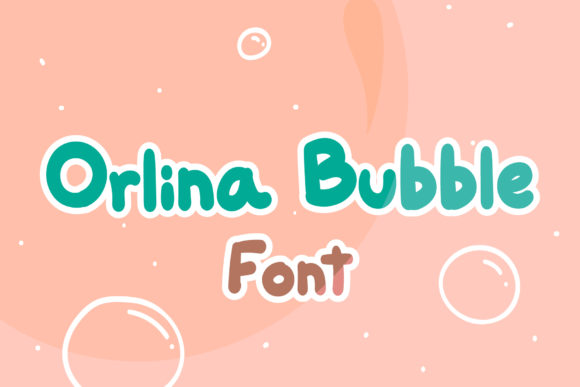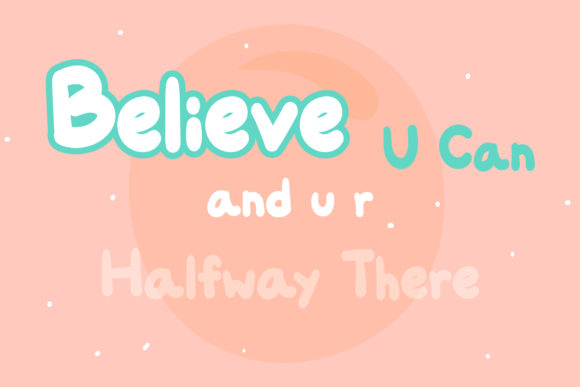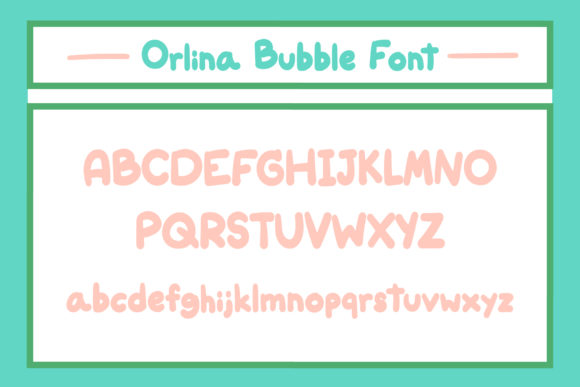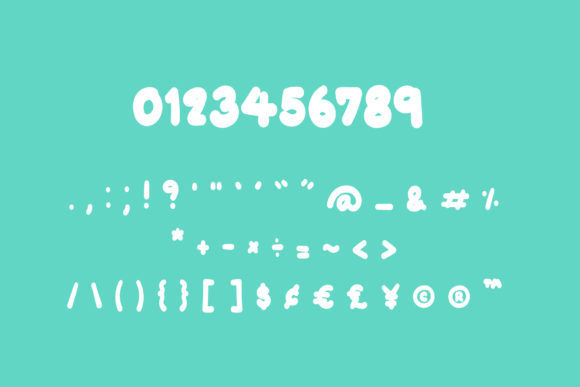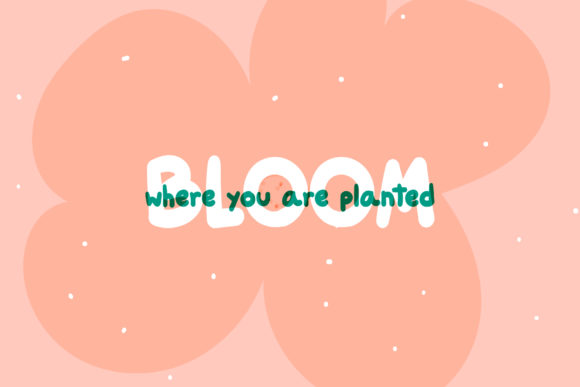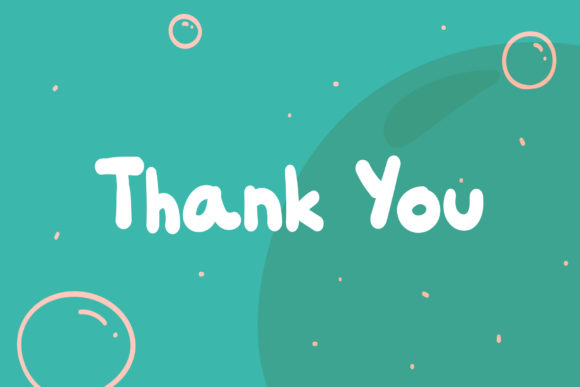
Orlina Bubble Font
About Orlina Bubble Font
Orlina Bubble is a bold handwritten font, carefully handcrafted to become a true favorite. Its casual charm makes it appear wonderfully down-to-earth, readable and, ultimately, incredibly versatile. Orlina Bubble will look outstanding in any context, whether it’s being used on busy backgrounds or as a standalone headline!